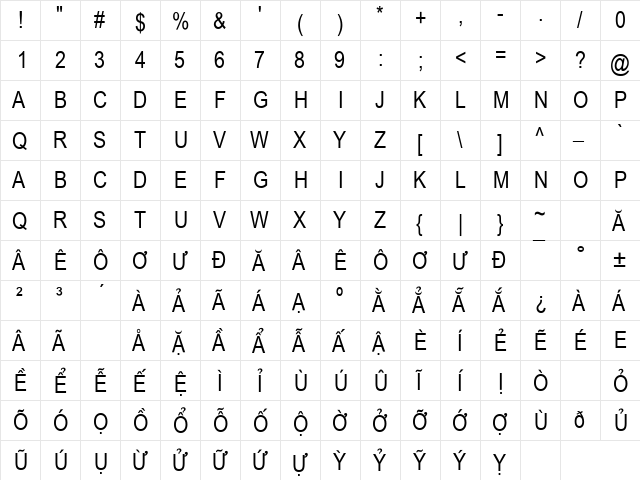
.VnArial NarrowH Regular
Design Context for .VnArial NarrowH Typeface
.VnArial NarrowH is a composed and adaptable typeface that performs quietly and consistently across a wide range of design contexts. The condensed width makes it efficient for tight spaces without sacrificing legibility.